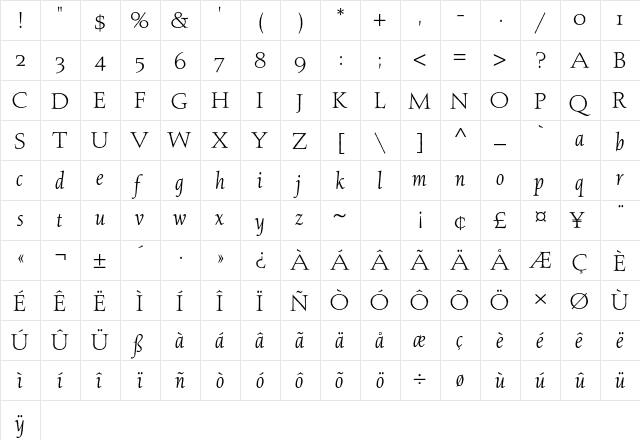
Aquinas Std Regular
| Designer | David Quay |
Design Context for Aquinas Std Typeface
Aquinas Std takes a measured approach to typography — its balanced proportions and neutral character make it a reliable workhorse for both digital and print work.